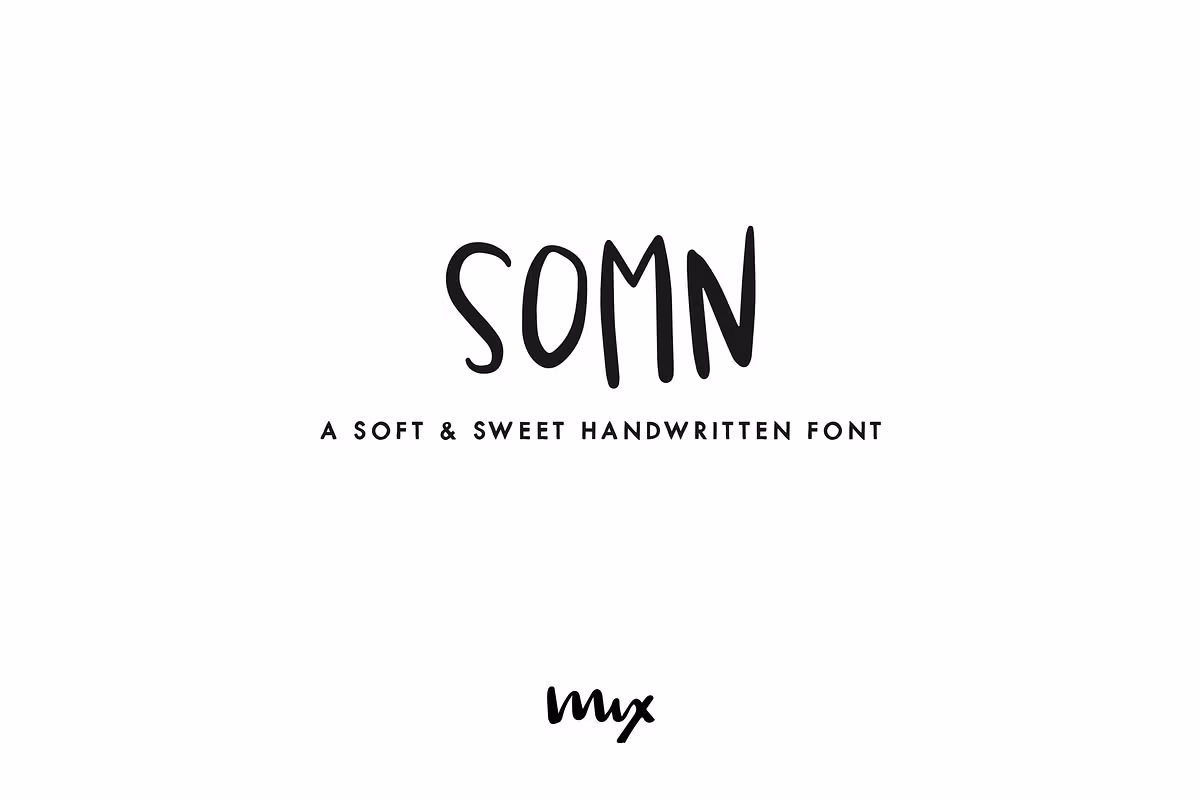
Somn — A Soft & Sweet Sans Serif Font Free Download is a gentle and approachable typeface designed with smooth, rounded edges that create a friendly, inviting atmosphere. Perfect for playful branding, children’s products, social media content, invitations, and modern logos, this font brings warmth and simplicity to any design.
With its clean lines and soft curves, Somn — A Soft & Sweet Sans Serif Font Free Download offers readability and charm, making it ideal for both display and body text. It pairs beautifully with other fonts and works well in any layout that needs a touch of elegance without sacrificing ease of use.